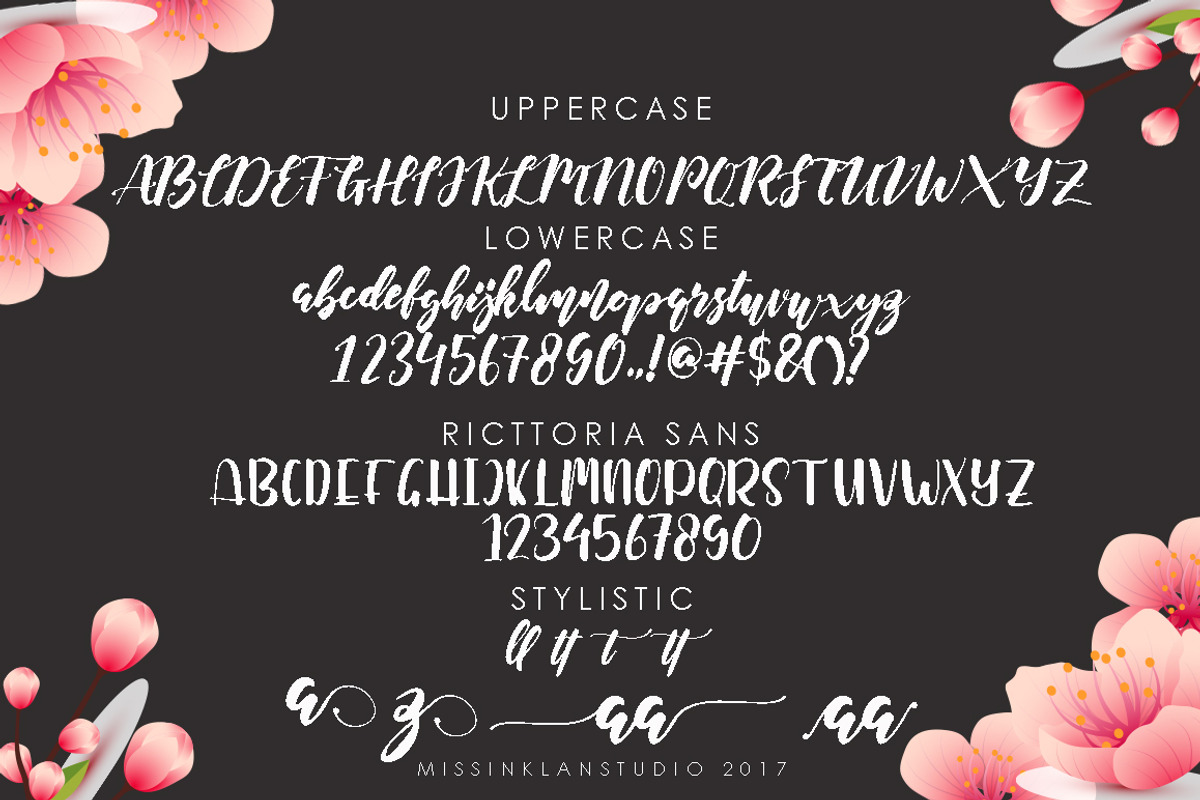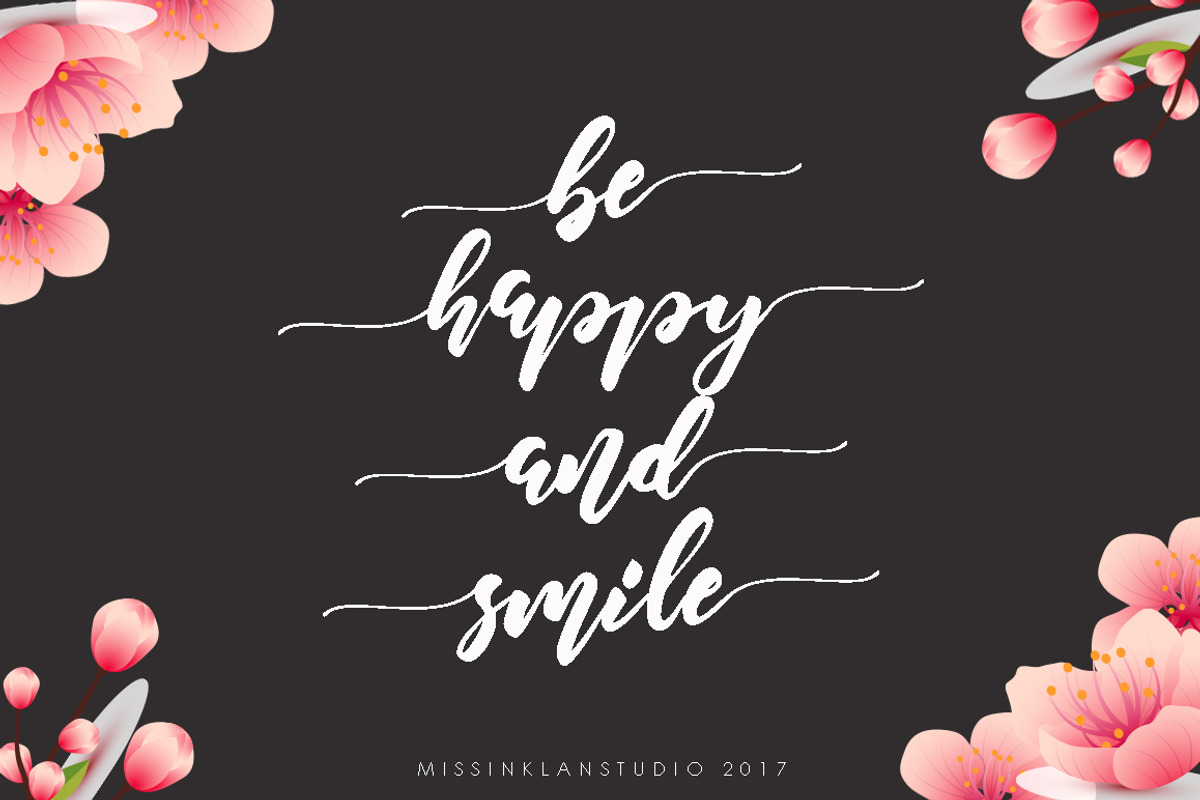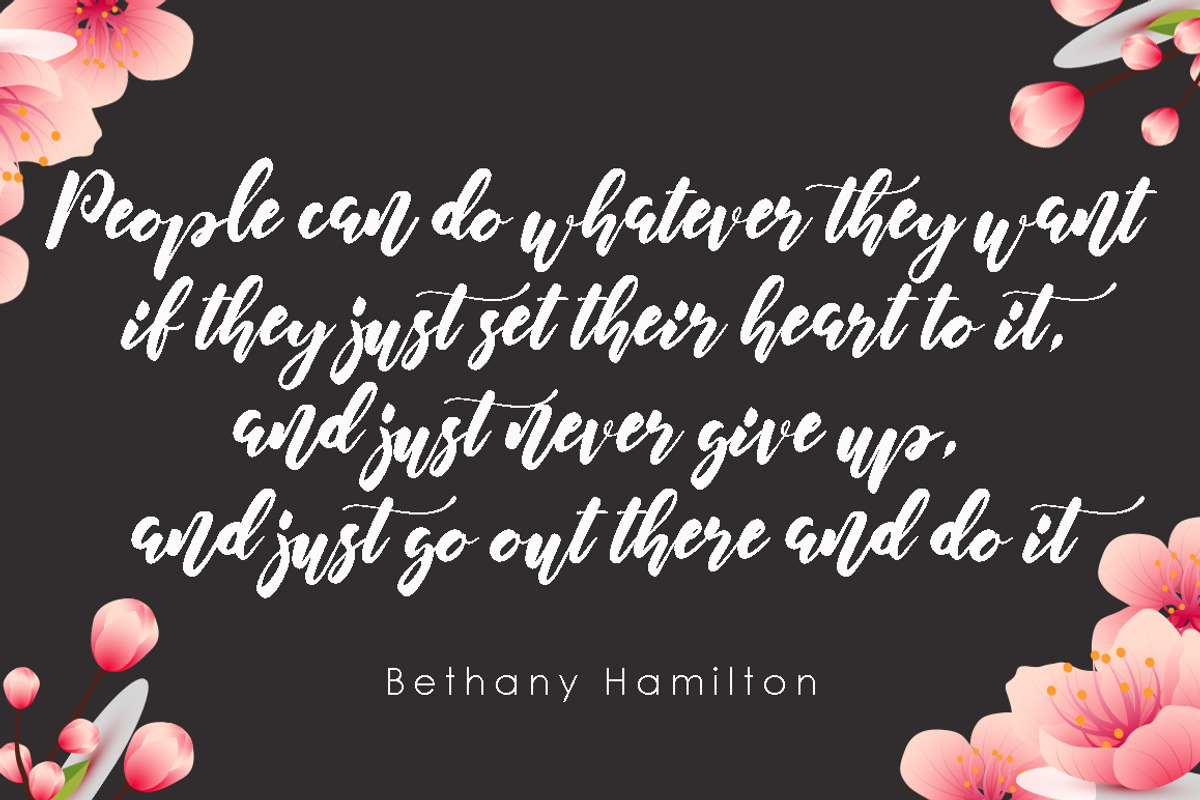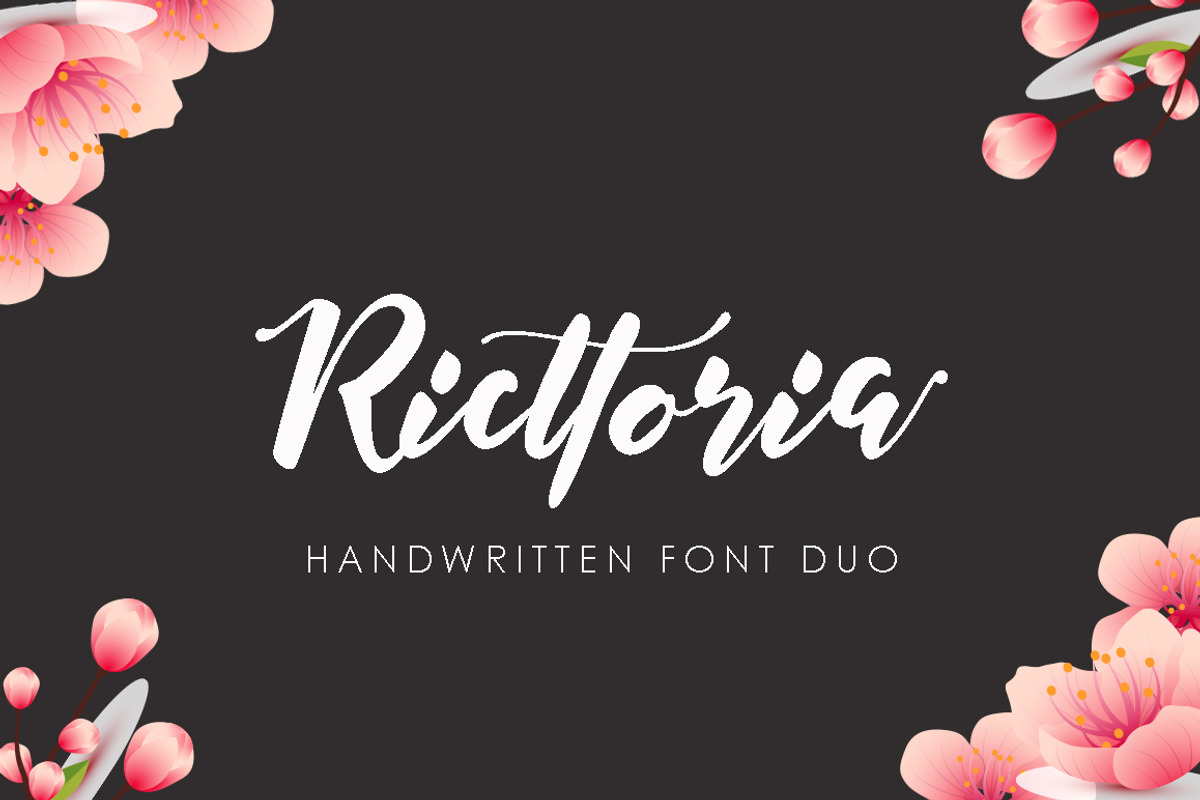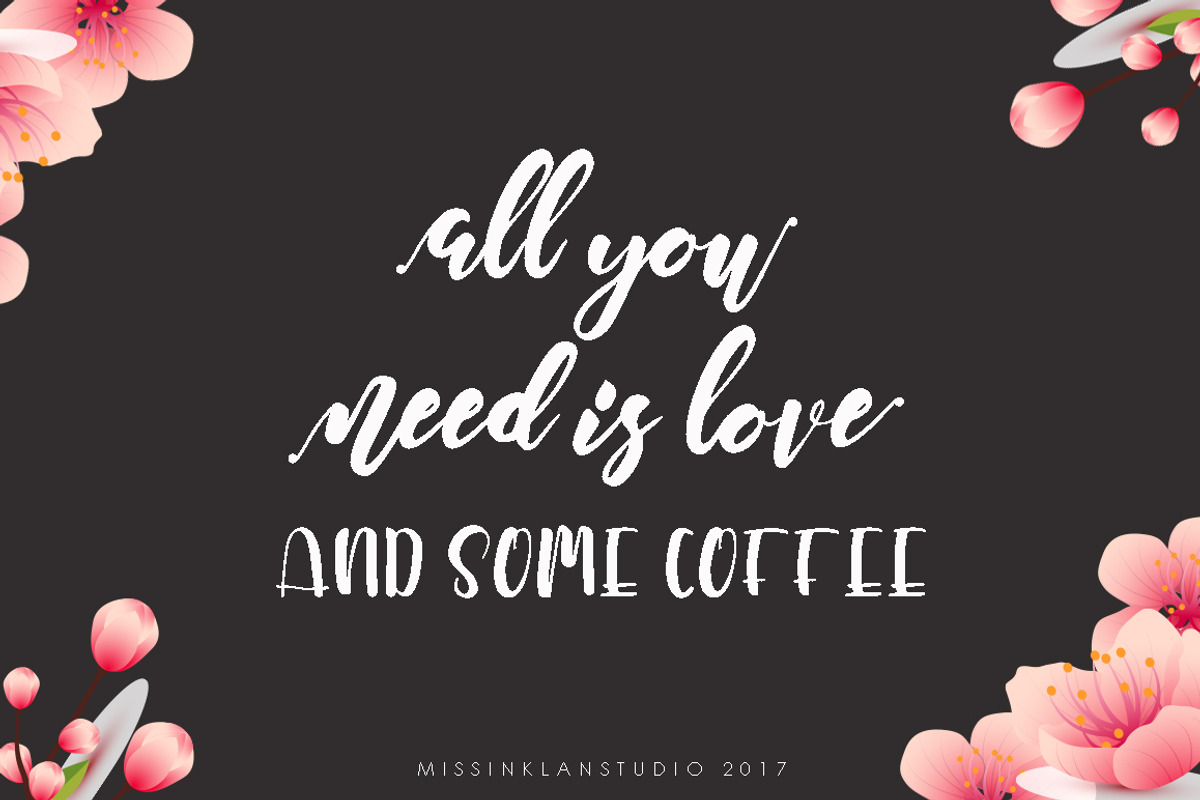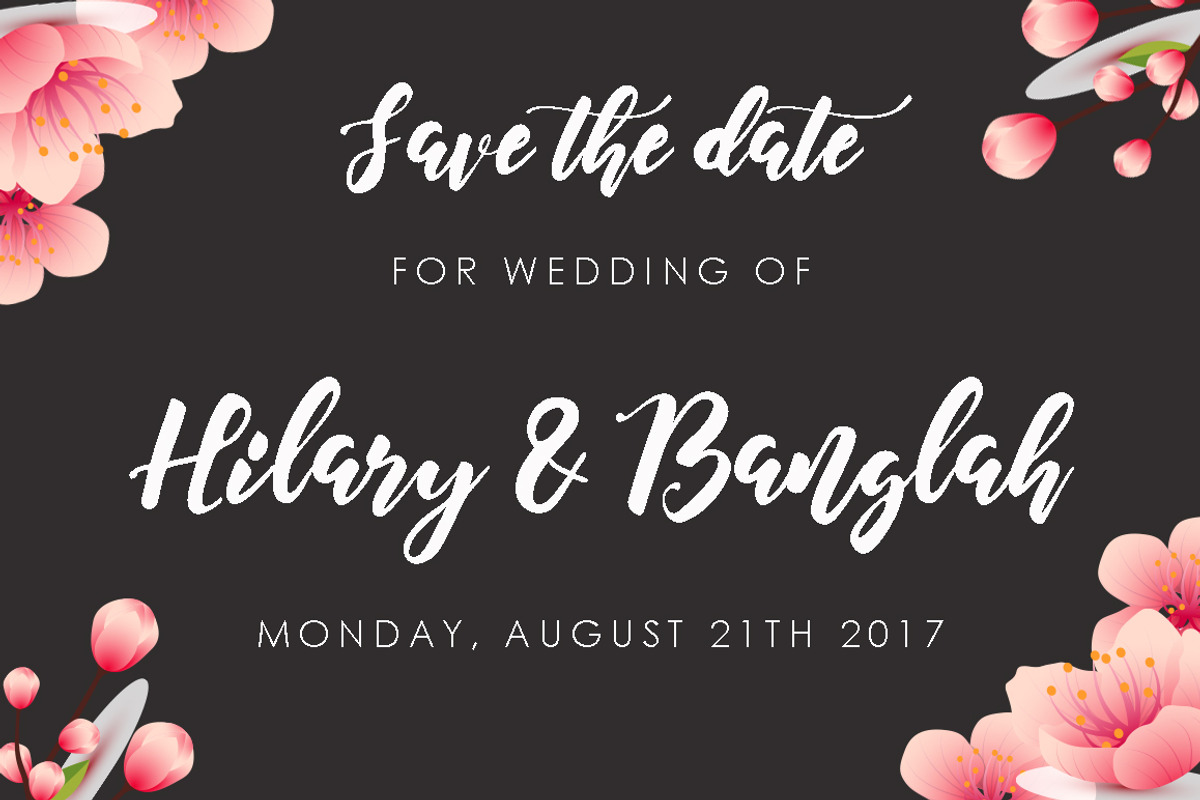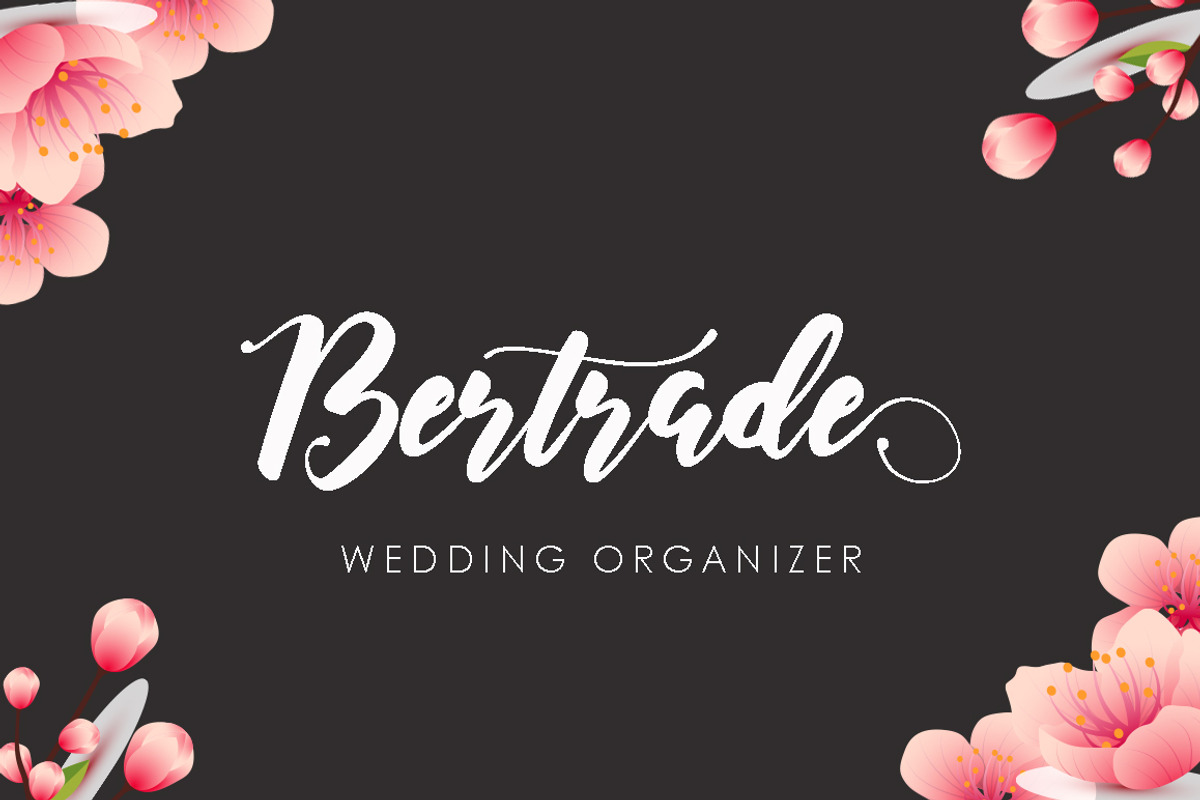
Ricttoria Font Duo
Ricttoria is modern script font. With modern script style this font will perfect for many different project ex: quotes, blog header, poster, wedding, branding, logo, fashion, apparel, letter, invitation, stationery, etc.
- Ricttoria Regular
- Ricttoria Sans Regular
Ricttoria Font Duo by MissinkLab Studio fits naturally into Branding, posters, packaging, typography.